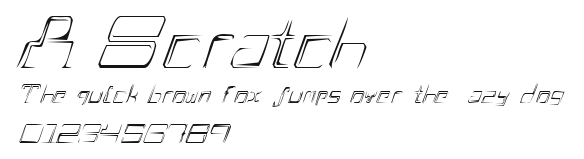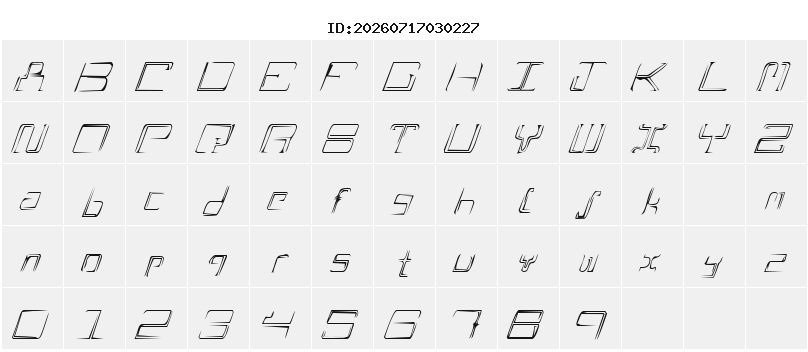
• Font Name: A Scratch
About A Scratch.ttf
A Scratch.ttf is a modern, elegant sans-serif font designed for ultimate readability and visual harmony. Perfect for branding, headlines, web design, and print materials.